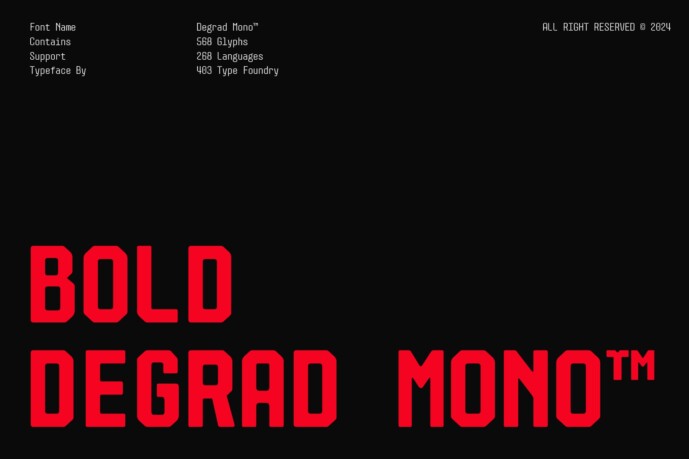
Bold Degrad Mono Font
Bold Degrad Mono Font is a great choice for projects looking for a modern, structured, and cutting-edge typeface. Its versatility across styles enhances its usability in a variety of design contexts. Each style features 568 meticulously crafted glyphs in 268 languages, ensuring your message is always clear and impactful. Perfect for posters, headlines, branding, and more, 403 Degrad Mono combines functionality and aesthetics to enhance your design work.
• Multilingual and ligatures